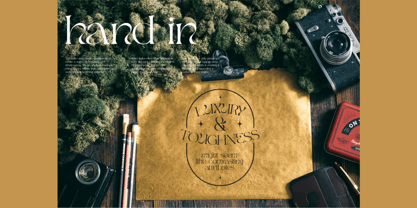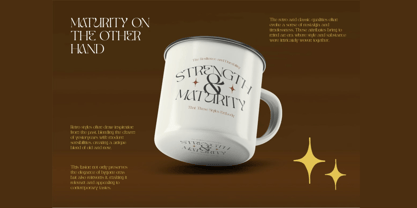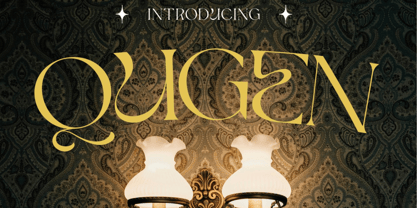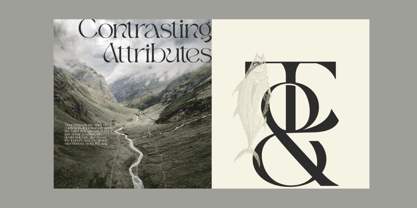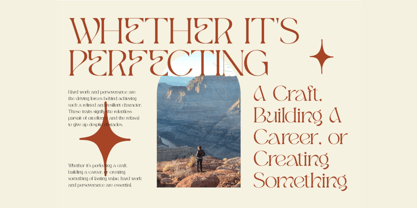
Qelme
Qelme is a refined and sophisticated serif typeface that blends classic charm with modern elegance. With its high-contrast strokes, graceful letterforms, and luxurious ligatures, Qelme is perfect for designers looking to add timeless beauty to their work. Whether you’re crafting logotypes, magazine headers, branding identities, or elegant quote posts, Qelme elevates every composition with a sense of poise and prestige.
Designed for versatility across both print and digital platforms, Qelme’s carefully designed alternates and ligatures give you the freedom to customize your typography for high-end projects, luxury packaging, and editorial layouts.
✦ Font Features:
• Elegant Uppercase & Lowercase Characters
• Stylish Ligatures and Alternates for design flexibility
• Clean and classic Numerals & Punctuation
✦ Perfect For:
• Luxury branding and product packaging
• Editorial headlines and fashion magazines
• Logo design and visual identity
• Social media quotes and blog graphics
• Wedding stationery and premium prints